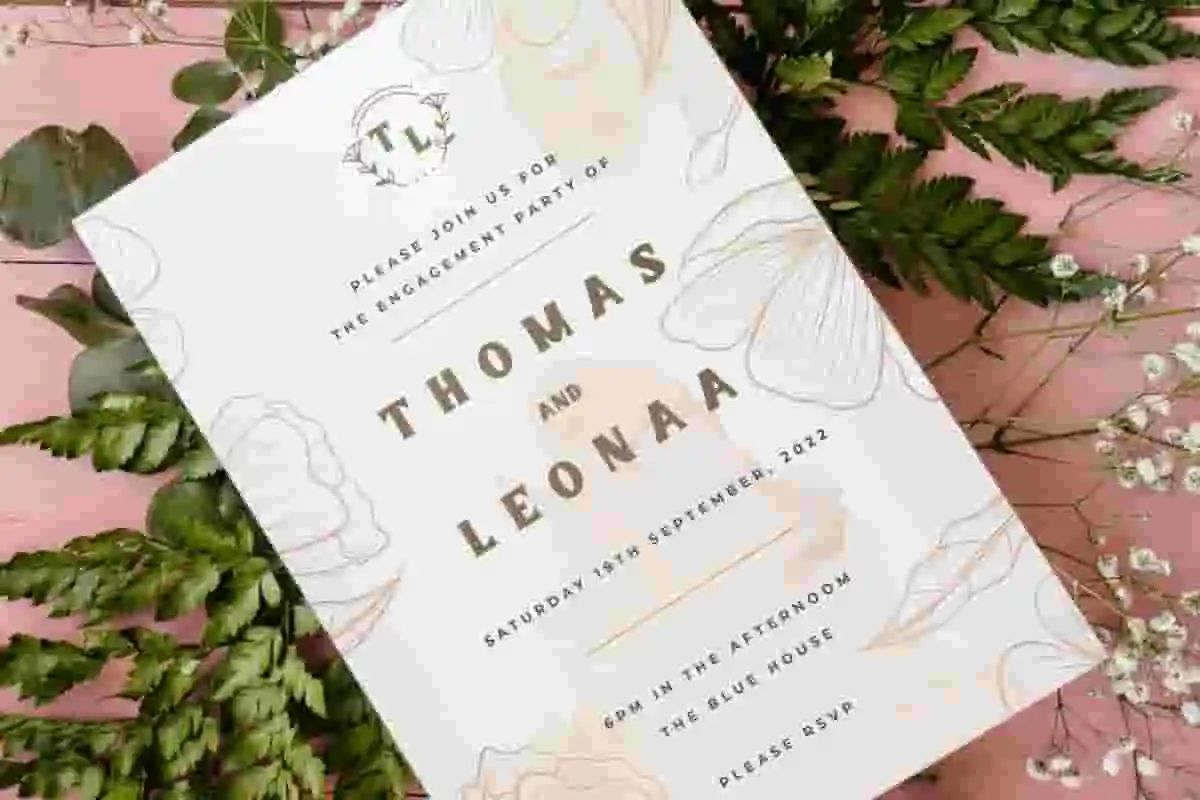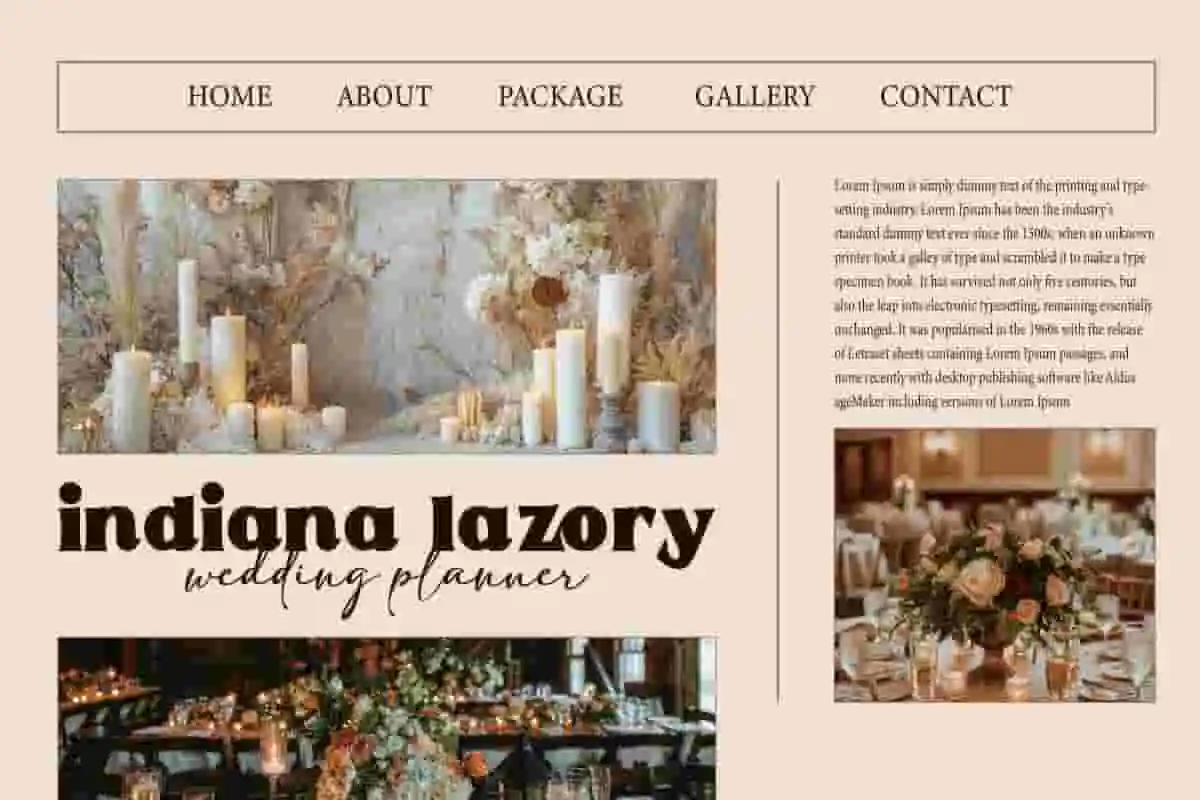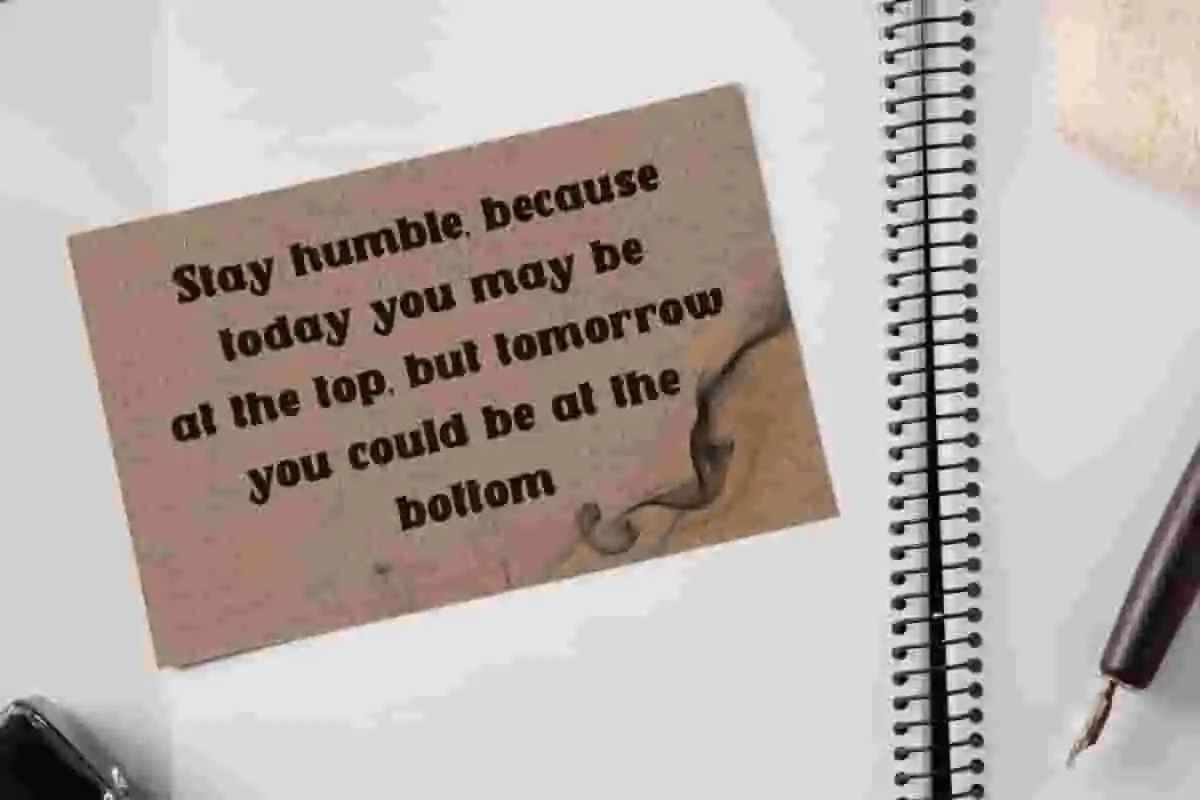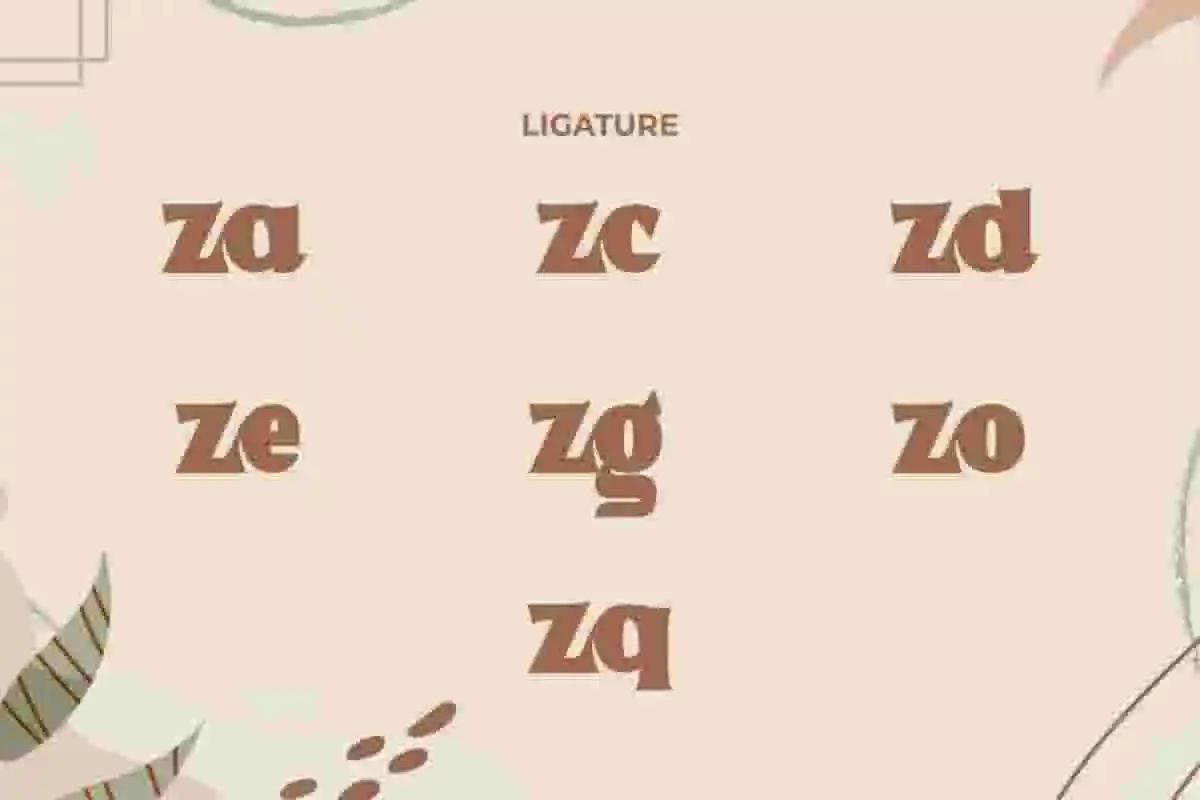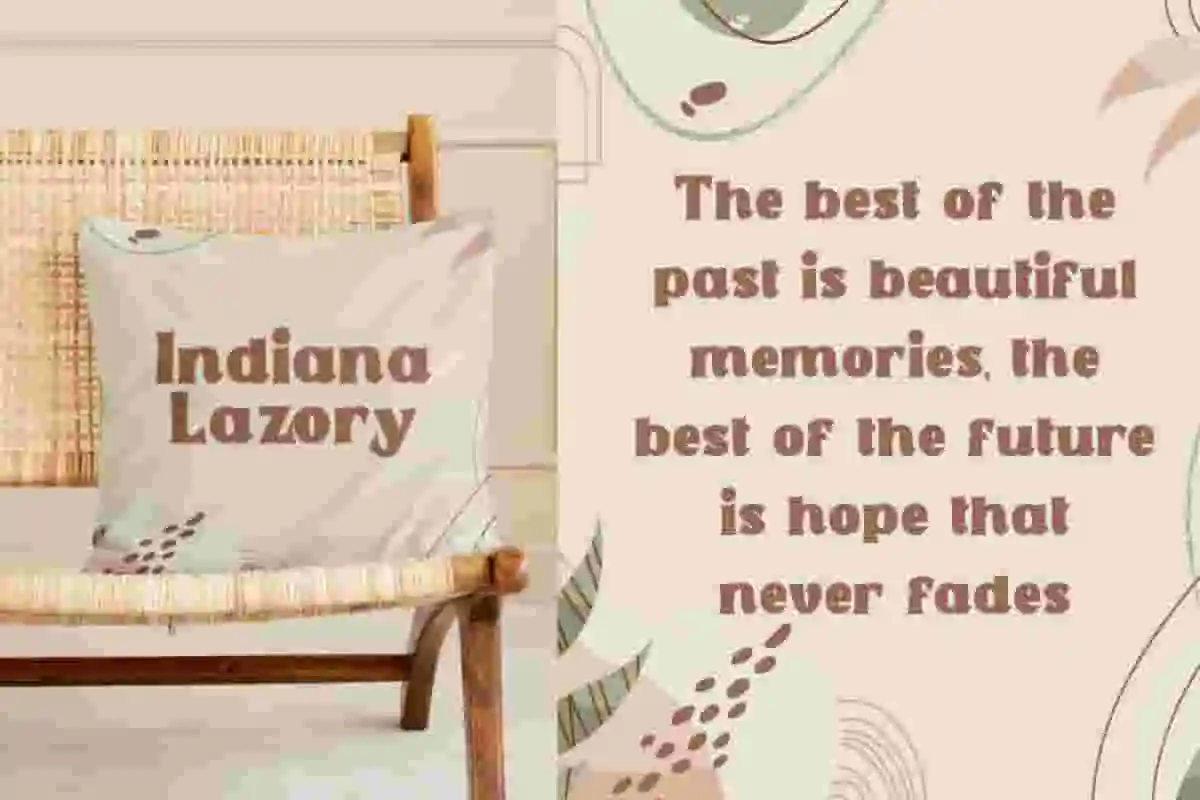
Indiana Lazory Font is a classic serif display font with vintage vibes by NoahType. This font has a medium weight which makes it look bold and chic on design. It will be good for any designs, such as stationery, brand image, invitation, custom design, label, marketing material, menu, poster, product packaging, quotes, signage, web and many more!
Indiana Lazory Font includes a complete set of Uppercase and Lowercase Basic Characters, Numerals, Punctuation and Symbol. The Ligature character of this font will give unique look and also a perfect choice for many industries, such as beauty product, event or wedding organizer, accessories, advertising, fashion, movie, photography, printing, publishing, spa and salon, travel, etc.